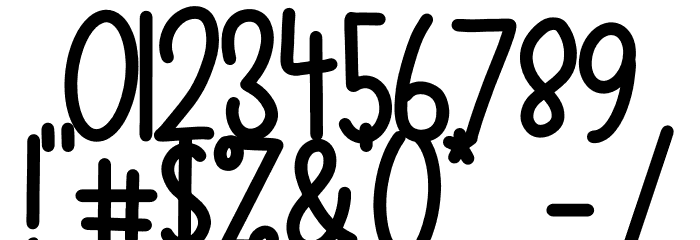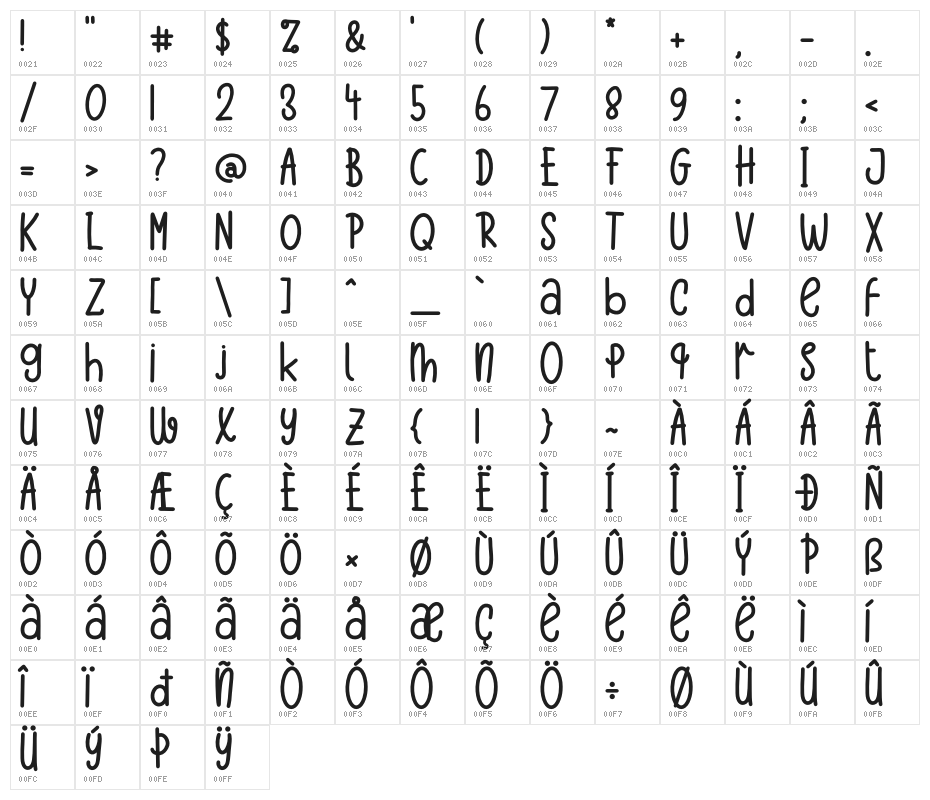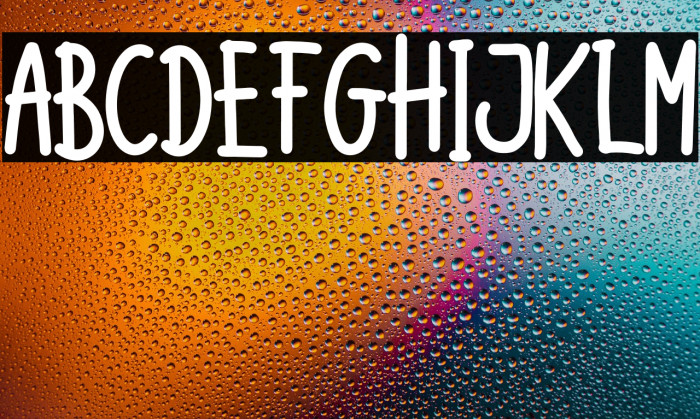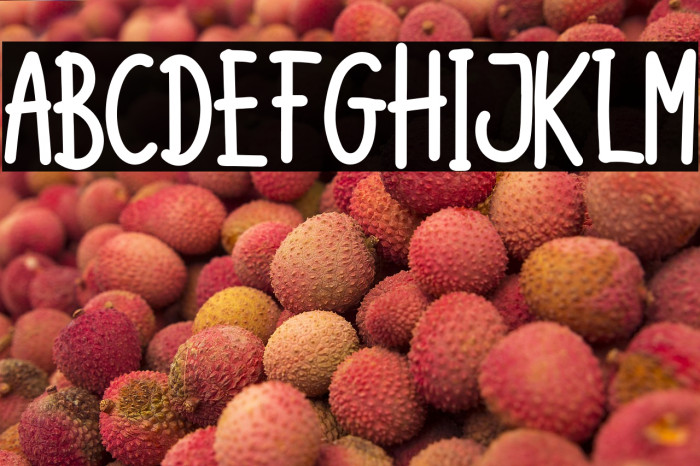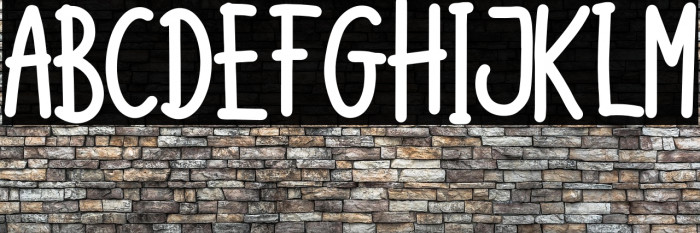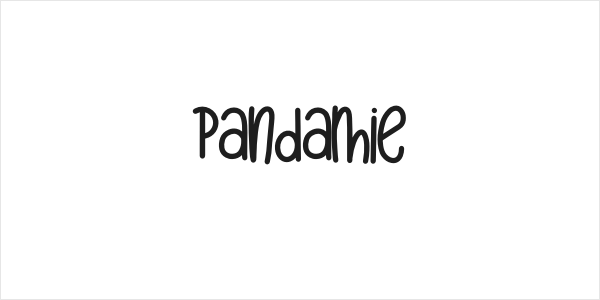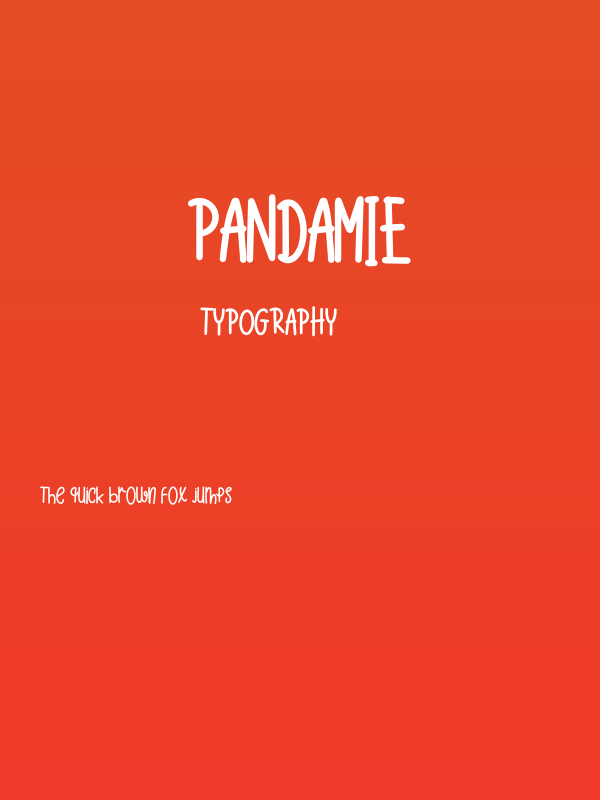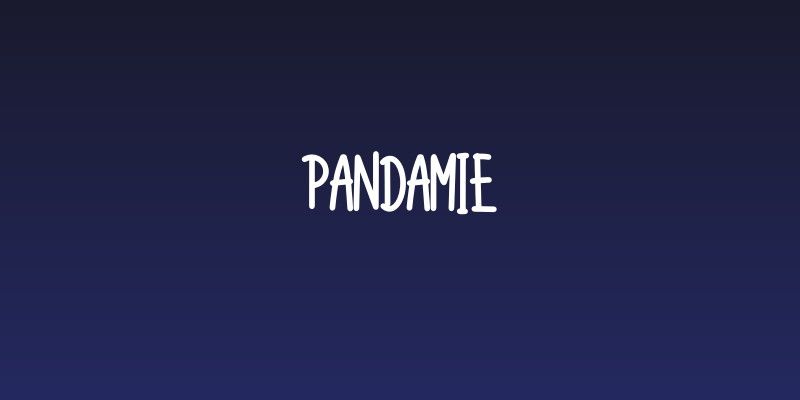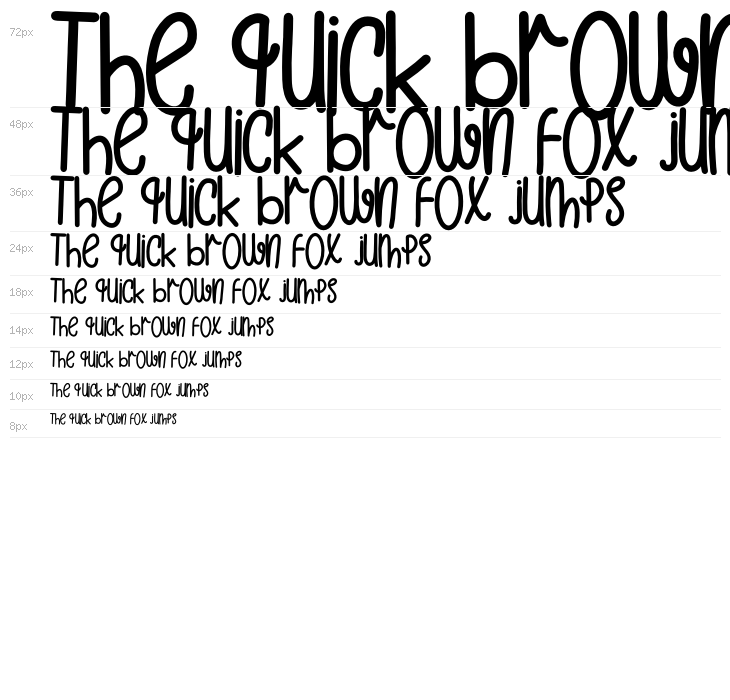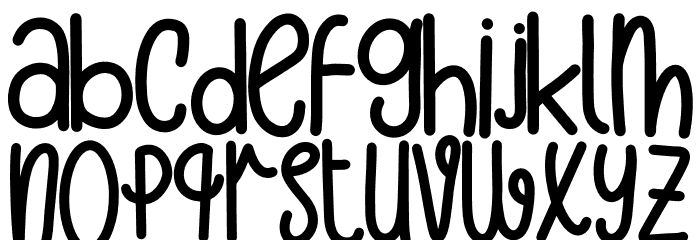
Pandamie Font
Pandamie Description
This playful and whimsical font features a hand-drawn style with a casual, friendly appearance. The letters are rounded and slightly irregular, giving them a charming, informal look. The uppercase and lowercase letters maintain a consistent style, with a slight slant that adds to the font's dynamic feel. The numbers and special characters are equally playful, complementing the overall design. This font is perfect for projects that require a fun and approachable aesthetic, such as children's books, greeting cards, or playful branding.